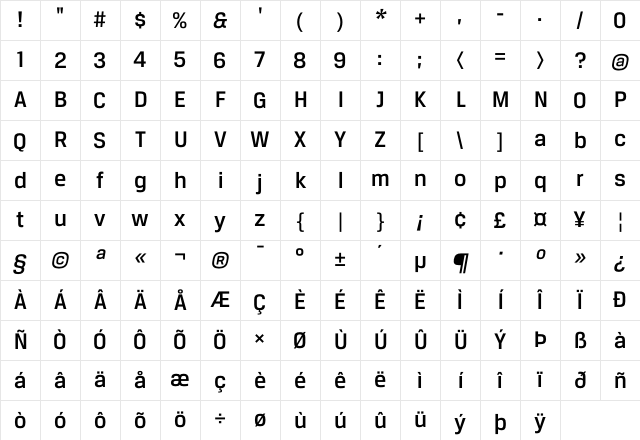
BreuerText Medium
Foundry: by Silas Dilworth
Design Context for BreuerText
BreuerText is a composed and adaptable typeface that performs quietly and consistently across a wide range of design contexts.
Pro Tip: Use BreuerText in both headline and body roles to test its range before committing to a single application.
Who designed the BreuerText Medium font?